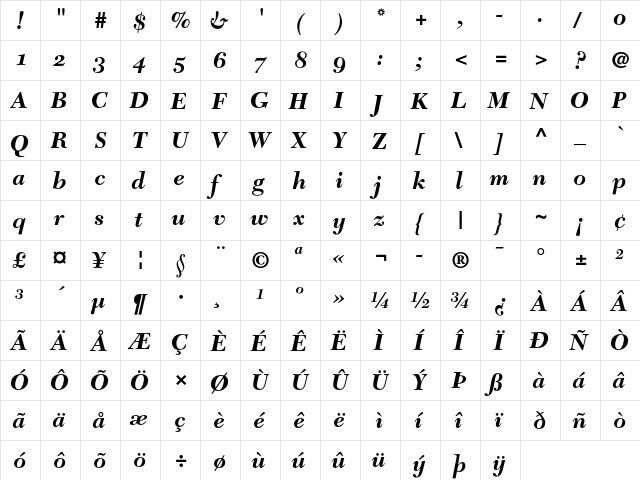
New Caledonia Bold Italic OsF Font Preview
Design Context for New Caledonia Typeface
New Caledonia takes a measured approach to typography — its balanced proportions and neutral character make it a reliable workhorse for both digital and print work. The dynamic lean of this cut emphasises speed and emphasis in any layout. The heavy weight commands attention and anchors typographic hierarchies.
Pro Tip: Try New Caledonia for annotation and caption copy alongside an upright companion — the contrast in angle creates a dynamic but ordered typographic system.